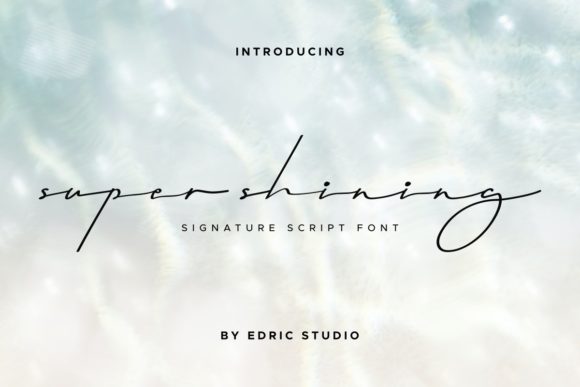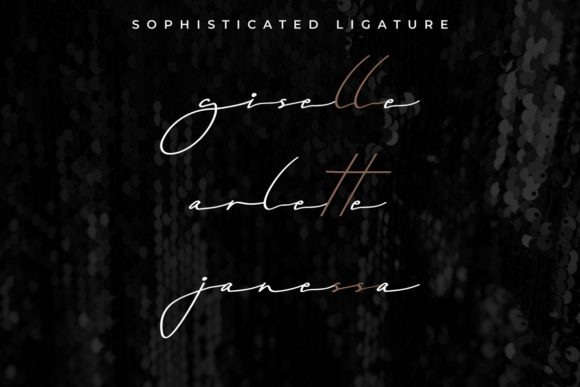
About Super Shining Font
Super Shining is a smooth and stylish handwritten font. It is defined by neat curves and is perfect for fashion branding or editorial designs. Add it confidently to your projects, and you won’t be disappointed.